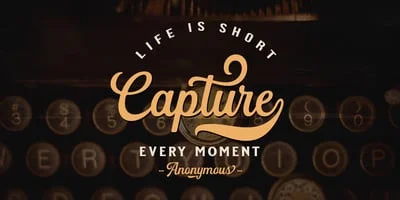
Black Seashore Font
Black Seashore Font is perfectly suited for coastal resort branding, beach club logos, nautical-themed restaurants, surfing gear packaging, marine sports events, tropical vacation promotions, seaside hotel marketing, and oceanic lifestyle brands requiring authentic maritime character.
Black Seashore Font creates excitement through its weathered coastal aesthetic and rugged maritime character that evokes the raw beauty of ocean shorelines. This typeface captivates with its salt-worn texture and organic flow, bringing authentic seaside atmosphere while maintaining strong visual impact for brands connected to coastal living and marine adventures.
Black Seashore Font family encompasses various weight options including Regular, Bold, Light, Distressed, and Clean versions. Additional decorative elements, nautical symbols, and wave-inspired alternates provide designers with extensive customization possibilities for creating authentic coastal compositions that capture the essence of seaside environments.
The maritime authenticity of Black Seashore Font makes it indispensable for projects demanding genuine coastal character. This display typeface seamlessly combines weathered beach aesthetics with contemporary design functionality, delivering exceptional performance in both digital and print applications where oceanic atmosphere creates memorable brand connections.
Coastal businesses consistently select Black Seashore Font for communications requiring maritime authenticity. Its rugged character makes it perfect for surf brands, beach resorts, marine equipment companies, and coastal lifestyle businesses where connection to ocean environments drives brand identity. The font's versatile nature ensures strong performance across all coastal applications.
Dive into coastal design with Black Seashore Font and experience how this exceptional typeface brings maritime authenticity and seaside character to every project, creating powerful brand communications that capture the untamed spirit of ocean shores and coastal adventure.